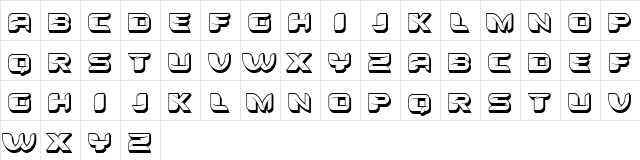
Tomato 3D Regular
Design Context for Tomato 3D Typeface
Tomato 3D is a composed and adaptable typeface that performs quietly and consistently across a wide range of design contexts.